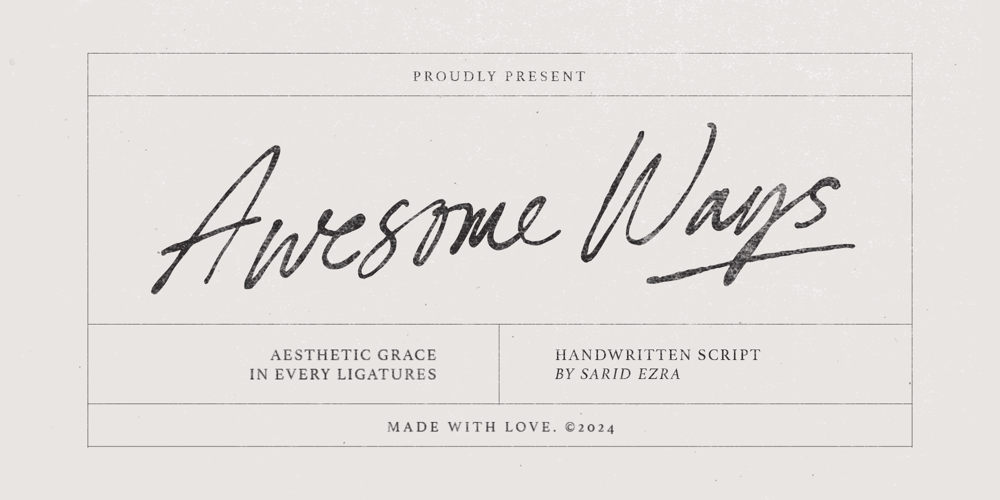
Awesome Ways
Awesome Ways font
Awesome Ways Font Family was designed by Sarid Ezra, Dzikrul Aulia and published by Sarid Ezra. Awesome Ways contains 1 styles and family package options. Awesome Ways is a handwritten script with bunch of ligatures that will make your project looks more natural and made by hand. You can use this font for any purposes such as label, logo, handwritten quotes, wedding invitations and more. This font also support multi language!